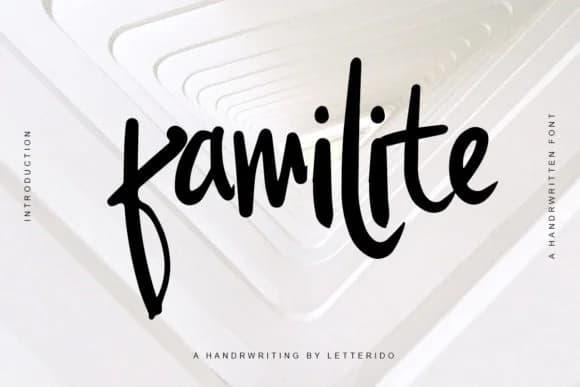
Familite has an approachable warmth that feels both personal and polished. Designed by Ratin Creative, this modern script balances elegance with playfulness, nimble enough for serious branding yet inviting enough to feel human. Script fonts often get stuck in overly formal territory. Familite refuses that pigeonhole.
It genuinely excels in wedding invitation suites, where handwritten charm beats rigidity every single time. Small business owners reach for it when designing boutique product labels and artisan packaging that need real personality without veering into novelty. Social media headers, greeting card designs, and personal stationery all read naturally with this typeface. The letterforms carry enough character to stand solo, yet they're restrained enough to layer over photography or pair with a secondary font without clashing. What makes it work across contexts is how it avoids looking overwrought or overly designed. There's a sketch-like quality that reads as intentional rather than accidental, with legibility that holds at smaller sizes.
Combine Familite with a clean, minimal sans-serif for body text and supporting elements, and you've got a pairing that works in both formal and casual contexts. Find it on Creative Fabrica and discover how restraint in a script font makes all the difference.
Familite Font is a script font that shines as a display or heading face. Pair it with a clean sans-serif or serif font for body text β the contrast creates a clear hierarchy while the two styles stay balanced and easy to read.